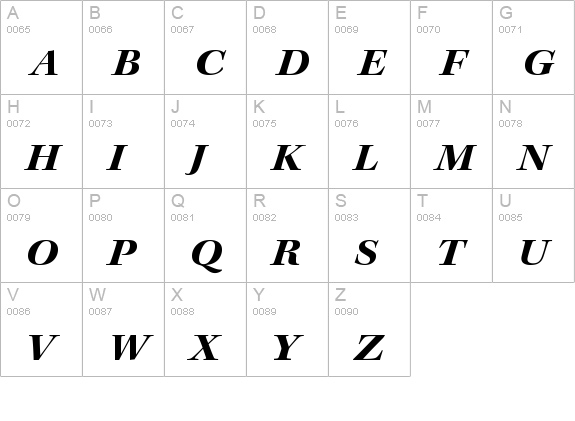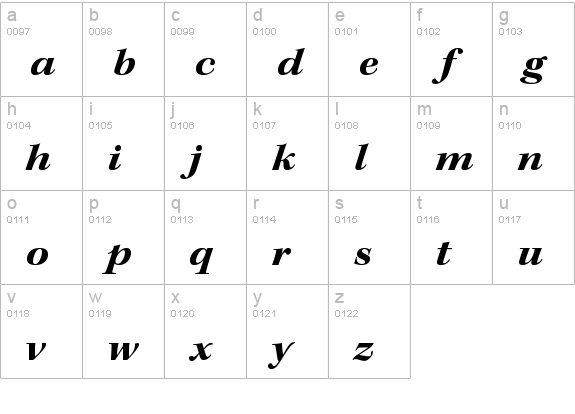
Kepler Std Bold Extended Italic Subhead Font Details
Kepler Std Bold Extended Italic Subhead is a strong, high-contrast, extended-width, italic variant in the Kepler typeface family \xE2\x80\x94 well suited to headlines, attention-grabbing titles, and strong calls-to-action.
Introducing Kepler Std Bold Extended Italic Subhead font, a bold and dynamic typeface that exudes confidence and style. With its extended and italicized design, this font is perfect for grabbing attention and making a statement. The Kepler Std Bold Extended Italic Subhead font is a versatile choice for a wide range of design projects. Whether you're creating eye-catching headlines, stylish subheadings, or impactful captions, this font will elevate your text and give it a bold and expressive edge. This font is not only visually striking but also highly legible, ensuring that your message is conveyed with clarity and impact. Its bold and extended forms add emphasis and weight to any text, making it stand out and command attention. The italicized style of the Kepler Std Bold Extended Italic Subhead font adds a touch of elegance and sophistication to your designs. It effortlessly combines the boldness of the font with a subtle slant, creating a unique and visually appealing aesthetic. Best of all, the Kepler Std Bold Extended Italic Subhead font is available for free download at FontsMarket.com. This means that you can easily access and use this stunning font in your design projects without any cost. Take advantage of this opportunity to enhance your designs and make a lasting impression. In conclusion, the Kepler Std Bold Extended Italic Subhead font is a powerful and visually captivating typeface that will bring your designs to life. Its bold and extended forms, combined with its italicized style, make it a versatile choice for a variety of design projects. Download it for free at FontsMarket.com and elevate your designs to new heights.